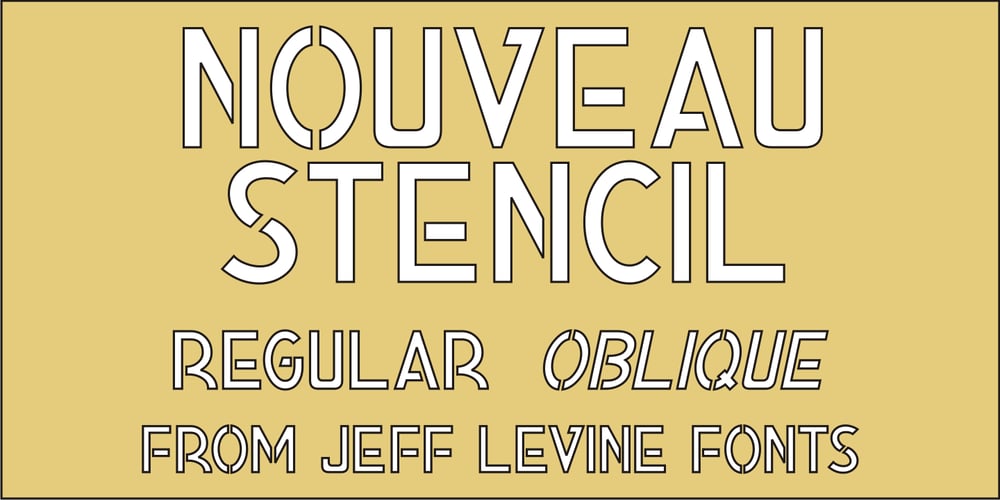
Nouveau Stencil JNL
Nouveau Stencil JNL font
Nouveau Stencil JNL Font Family was designed by Jeff Levine and published by Jeff Levine. Nouveau Stencil JNL contains 2 styles and family package options. The sheet music for the 1917 song “Wake Up Virginia (and Prepare for Your Wedding Day)” features a hand lettered title in a sans serif Art Nouveau design with stencil influences. This was the inspiration for Nouveau Stencil JNL, which is available in both regular and oblique versions.